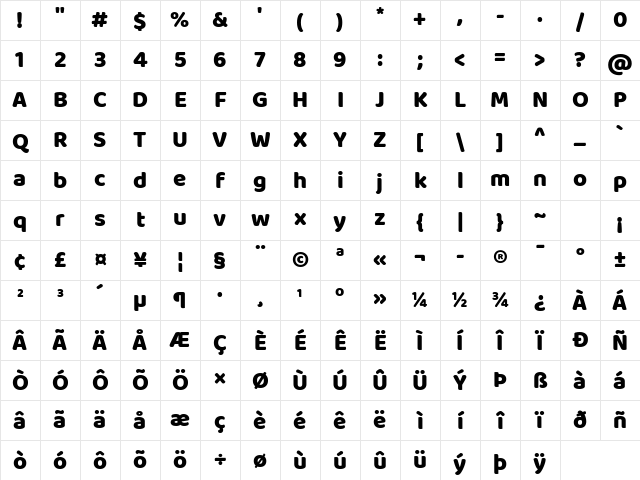
Baloo Bhaina Regular
Foundry: Ek Type
Designer: Manish Minz, Shuchita Grover and Ek Type
Design Context for Baloo Bhaina
Baloo Bhaina is a composed and adaptable typeface that performs quietly and consistently across a wide range of design contexts.